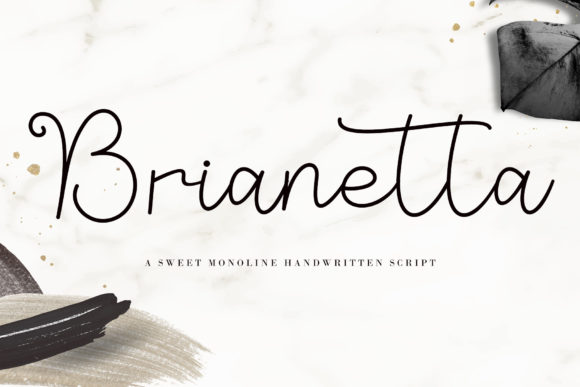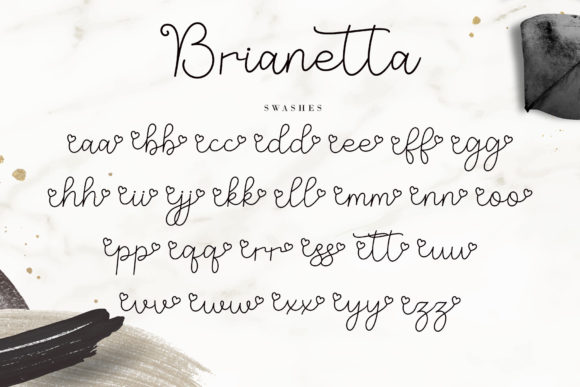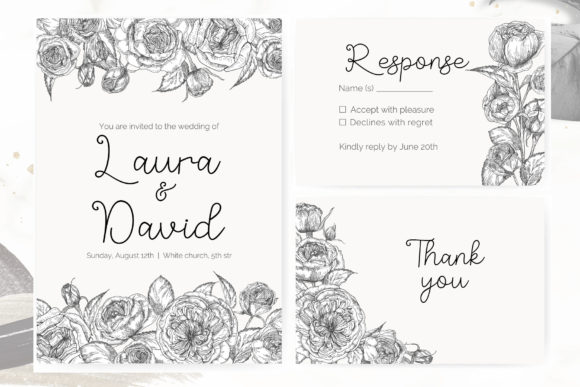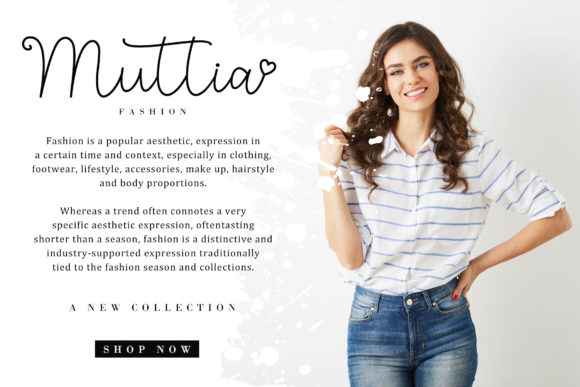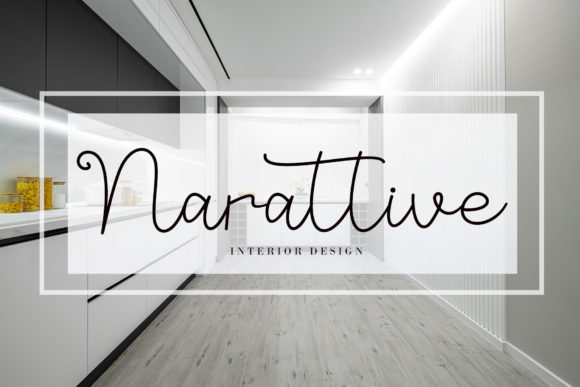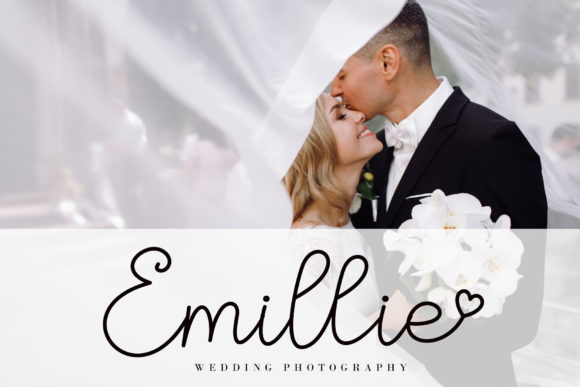
Brianetta Font
About Brianetta Font
Brianetta is a romantic and delicate script font. It is PUA encoded which means you can access all of the amazing glyphs and ligatures with ease!
Every letter has a unique and beautiful touch, which will make your design come alive!